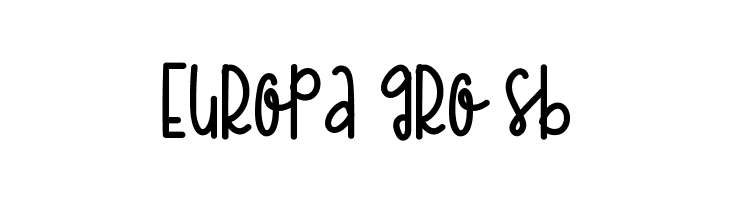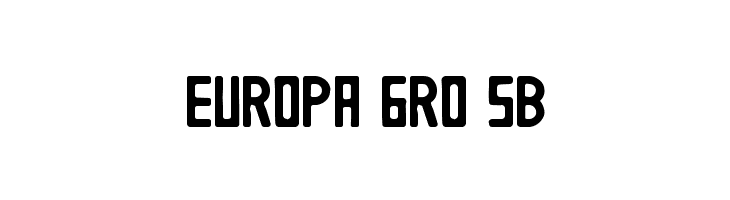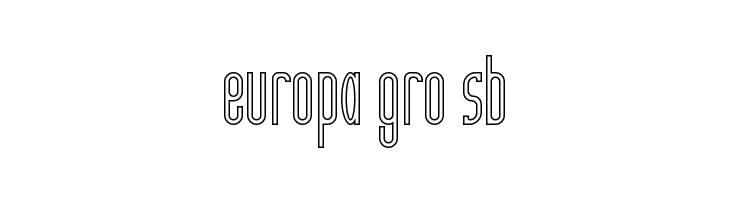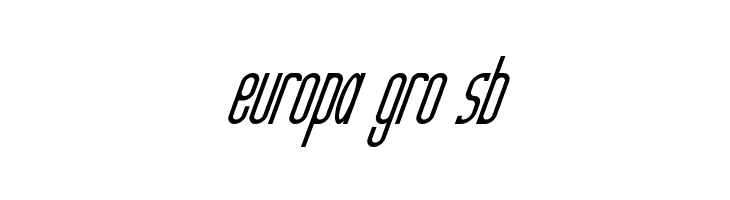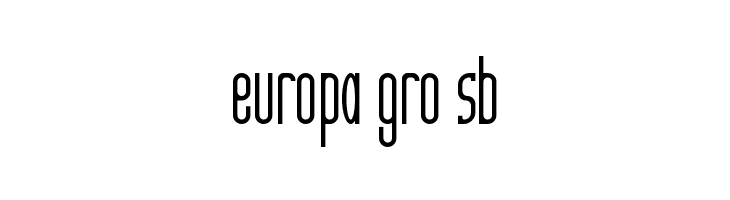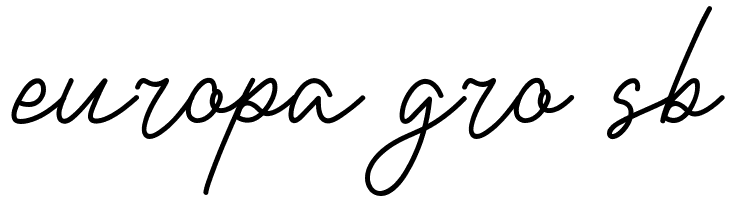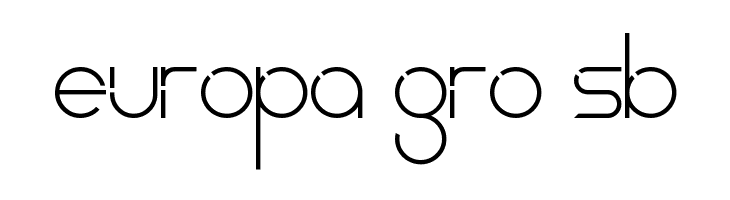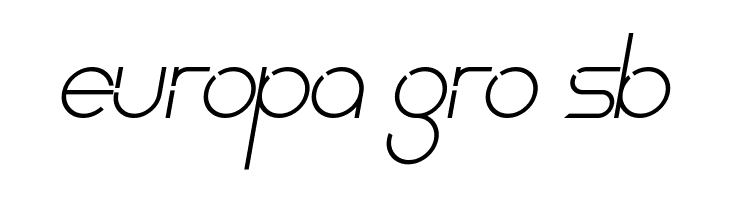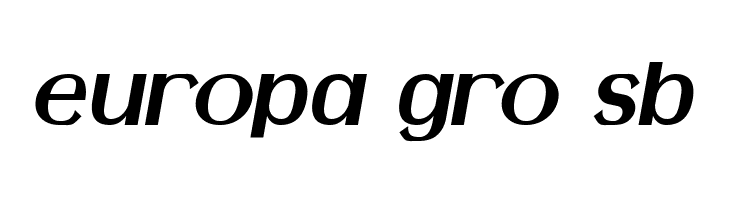
A playful, hand-drawn font with rounded edges and a casual style.
A modern, striped decorative font with bold, geometric uppercase letters.
A bold, vintage-style font with a strong, industrial feel.
A modern, outlined font with a geometric and edgy style.
A sleek, italicized font with elongated, narrow characters for a modern look.
A tall, narrow font with a modern and elegant design.
A fluid, cursive font with elegant, connected strokes and a modern yet classic appeal.
A modern, geometric font with clean lines and sharp angles.
A sleek, modern italic font with geometric precision.
A modern, italicized font with clean lines and a sleek appearance.